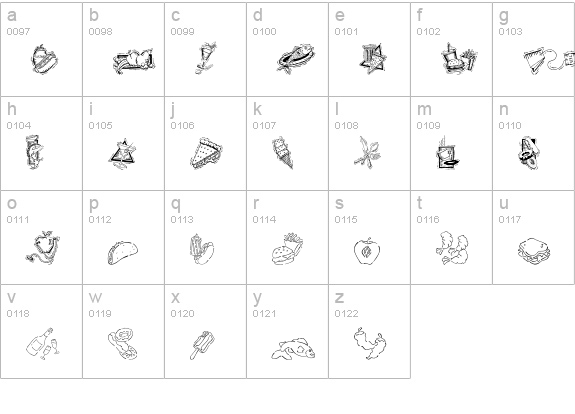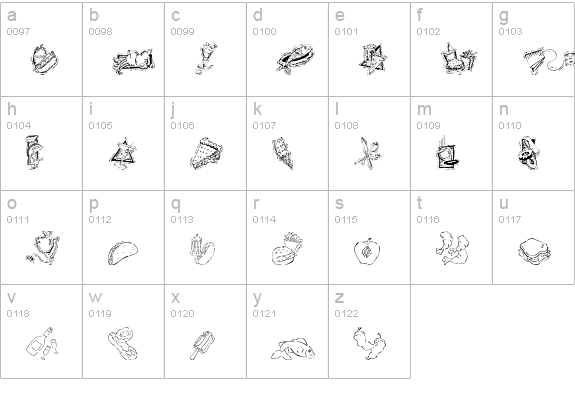
GE Deco Foods Font Details
The GE Deco Foods font is a stylish and elegant choice for all your design needs. With its sleek lines and decorative elements, this font is perfect for adding a touch of sophistication to your projects. Whether you're creating menus, invitations, or branding materials, the GE Deco Foods font is sure to make a statement. Best of all, this font is completely free to download at FontsMarket.com. Simply head over to the website and start using this beautiful font in your designs today. Don't miss out on the opportunity to elevate your projects with the GE Deco Foods font – download it now and let your creativity shine!